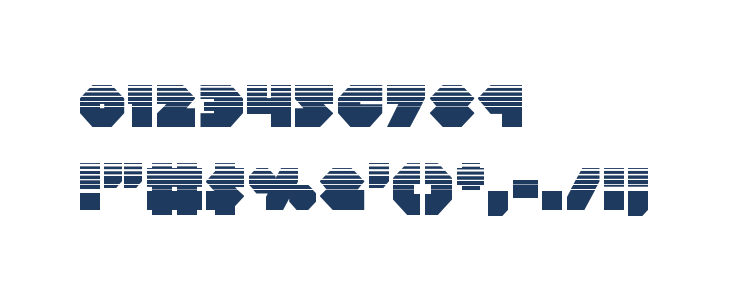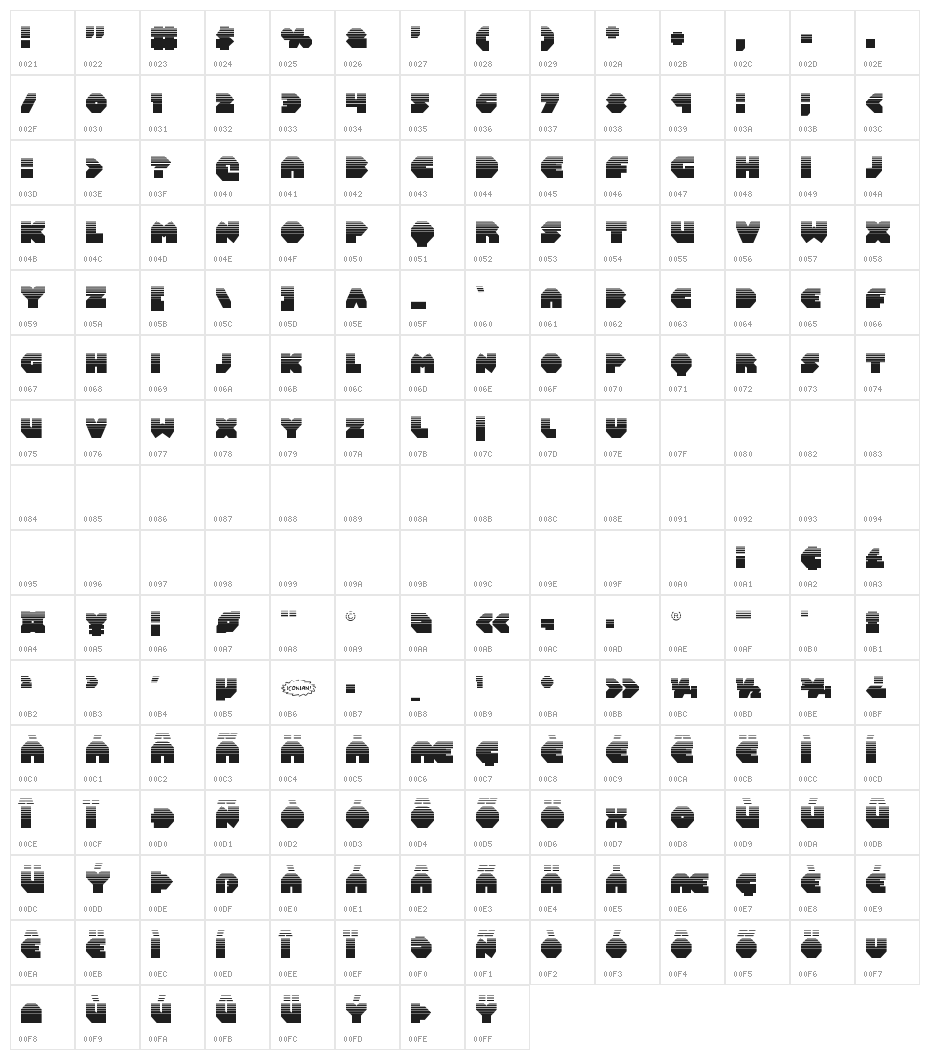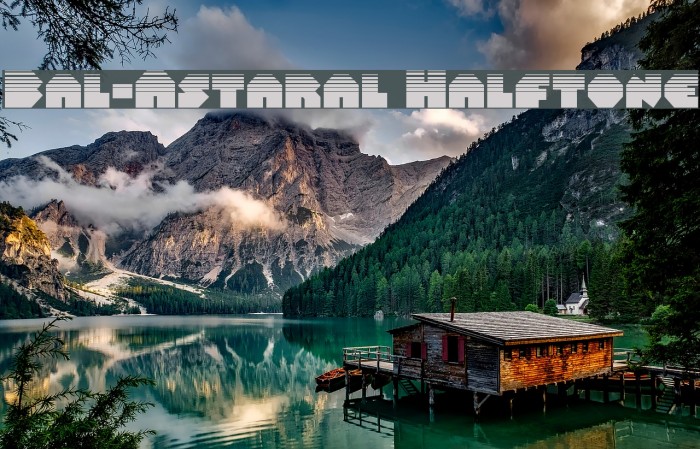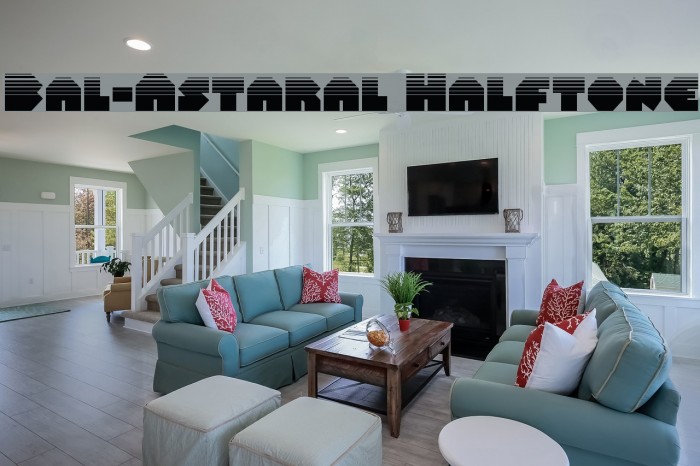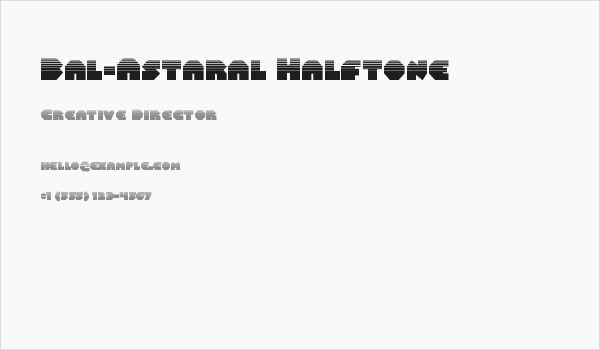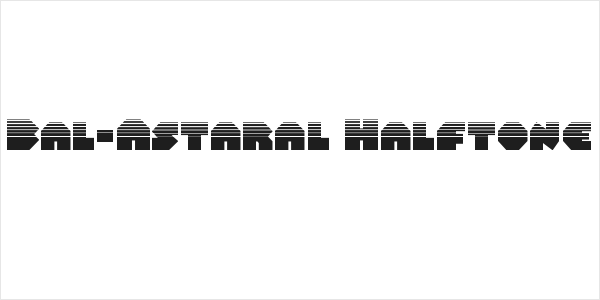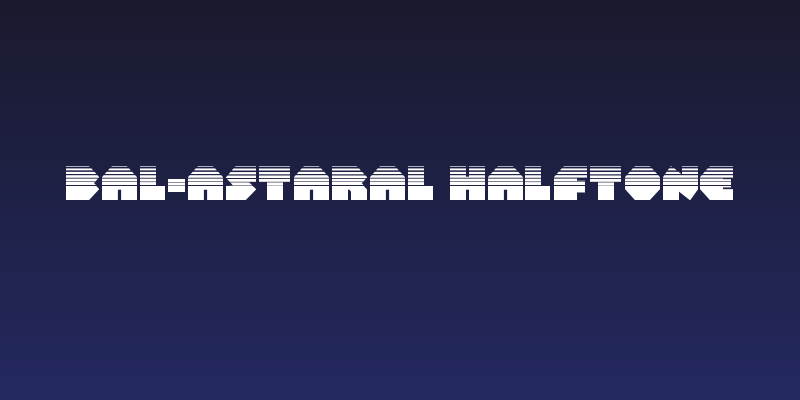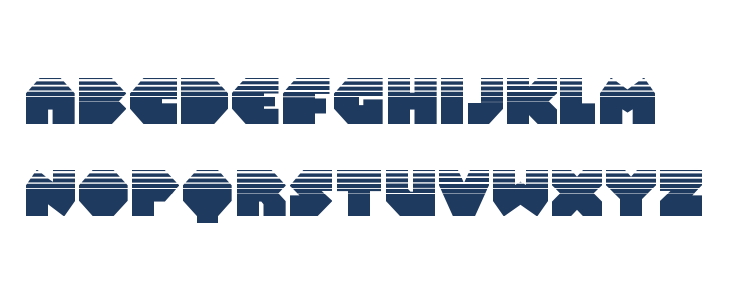
Bal-Astaral Halftone Font
This font features a bold and striking design with a halftone effect that creates a sense of movement and depth. The characters are constructed with horizontal lines that give a layered appearance, making it visually dynamic and engaging. The uppercase and lowercase letters maintain a consistent style, with each character exhibiting a geometric form that is both modern and industrial. The numbers and special characters follow the same design principles, ensuring a cohesive look across all glyphs. This font's unique style makes it ideal for projects that require a bold statement or a futuristic aesthetic.
Overall StyleModern, Industrial
Proposed ProjectsIdeal for posters, album covers, branding projects, and any design work that requires a bold, futuristic look.